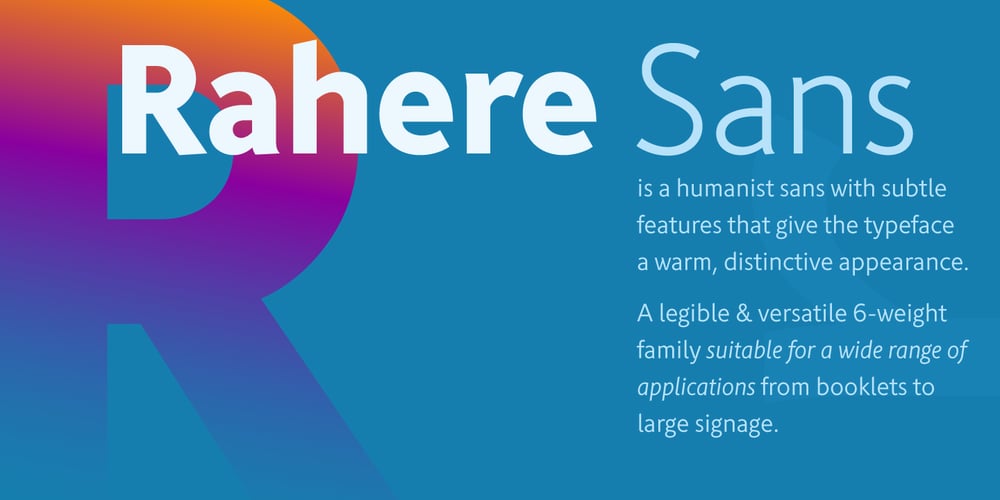
Rahere Sans Font Family was designed by Michael Gills and published by ULGA Type. Rahere Sans contains 12 styles and family package options. Rahere is a humanist sans with subtle features that give the typeface a distinctive, warm appearance without distracting the reader. Legible at large and small sizes, Rahere is a versatile family suitable for a wide range of applications such as annual reports, advertising, brochures, catalogues, information signage, screen text and visual identities. For projects that need to convey a sense of authority or credibility, this is the ideal sans serif to use. The family consists of six weights ranging from light to extra bold with corresponding italics and the character set covers most of the major European languages. Each weight contains lining & non-aligning numerals in both proportional & tabular spacing. The tabular numerals share the same width across all weights and styles – a must for financial tables in annual reports. Spirited and lively, the italic lowercase is more cursive and calligraphic than the roman, although it harmonises perfectly, displaying enough character to create emphasis without looking out of place. When used on its own, for pull-out quotes or poetry, the italic exudes a charm that draws attention to the text. The typeface is named after Rahere, a 12th-century Anglo-Norman priest, who founded St Bartholomew’s Hospital, London in 1123. I will always be indebted to Barts (as it is now commonly known) because in 2007 I was successfully treated for relapsed testicular cancer. Way back in 1992 I designed my first sans serif, Charlotte Sans, and although it was relatively successful, I was never really satisfied with the end result: not enough weights & italics, a small character set, lack of accented characters, and my design skills were still in their infancy. Whilst Rahere shares many common elements with Charlotte Sans, it is much more than just a reworking; it represents over 20 years of accumulated knowledge and experience as a designer.